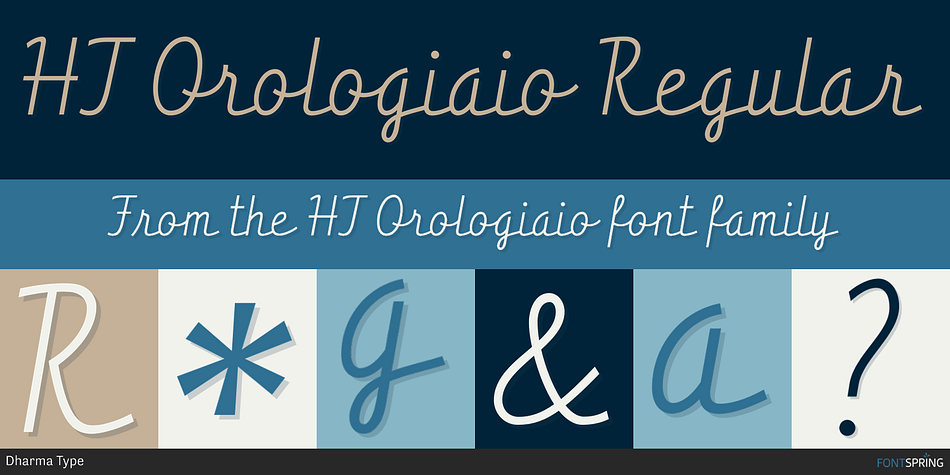
HT Orologiaio Regular
HT Orologiaio is a script font published by Dharma Type.
Retro script fonts inspired by shopfront lettering and hand-painted wall advertisements from 1950s Italy.
They capture the nostalgic charm of mid-century Italian streets, blending elegance with a handcrafted feel.
HT Orologiaio is made by sharp and thin lines with a retro mood.